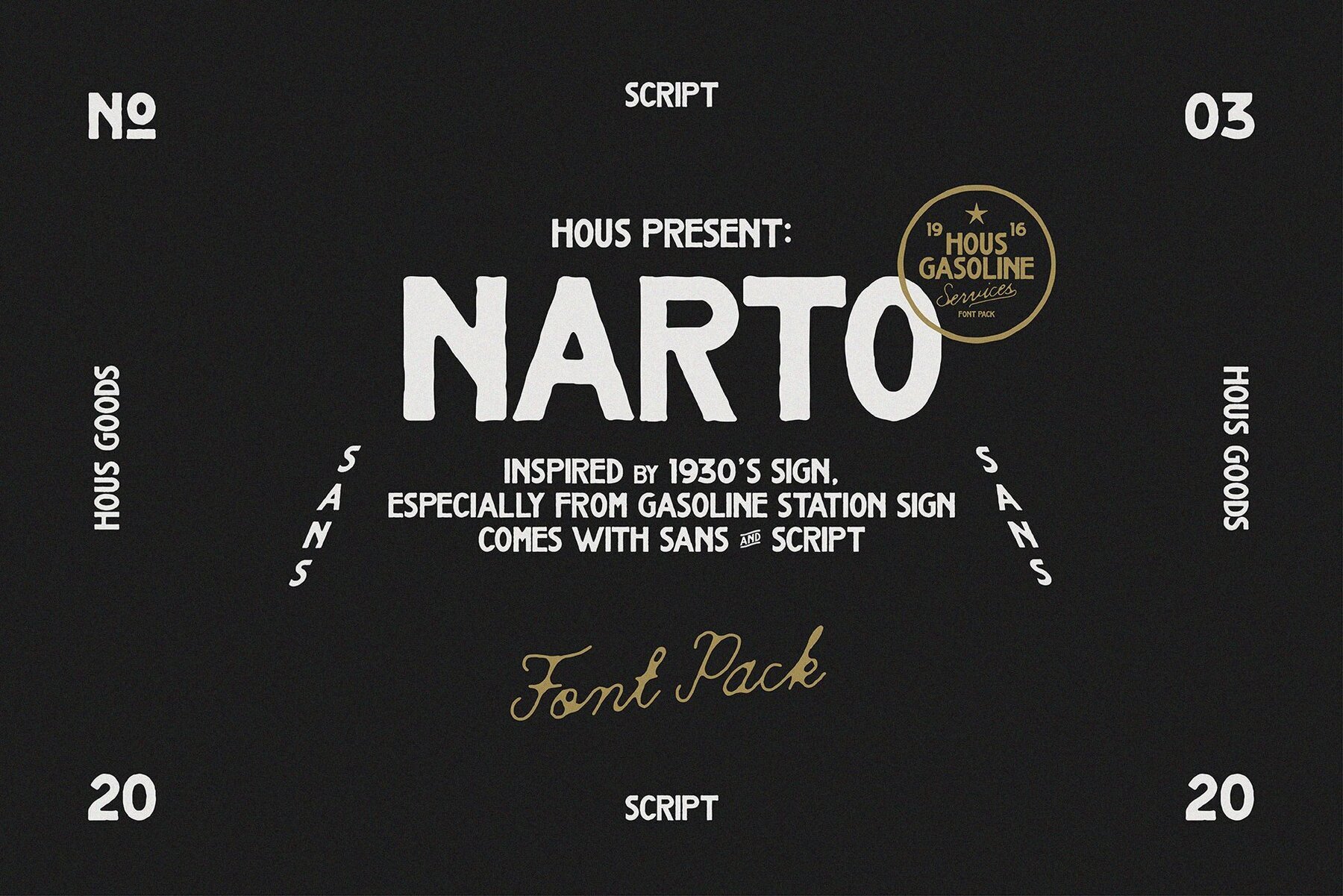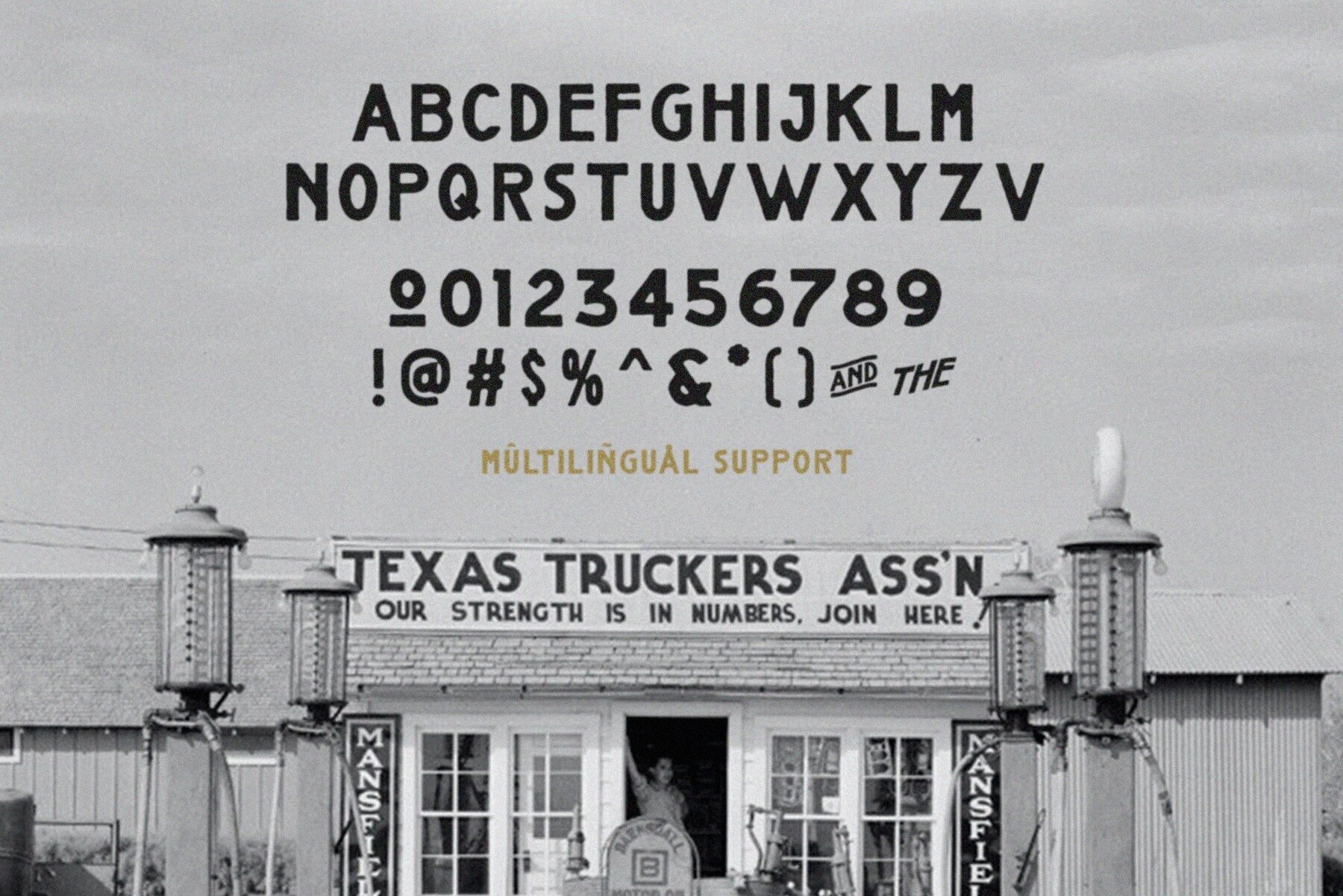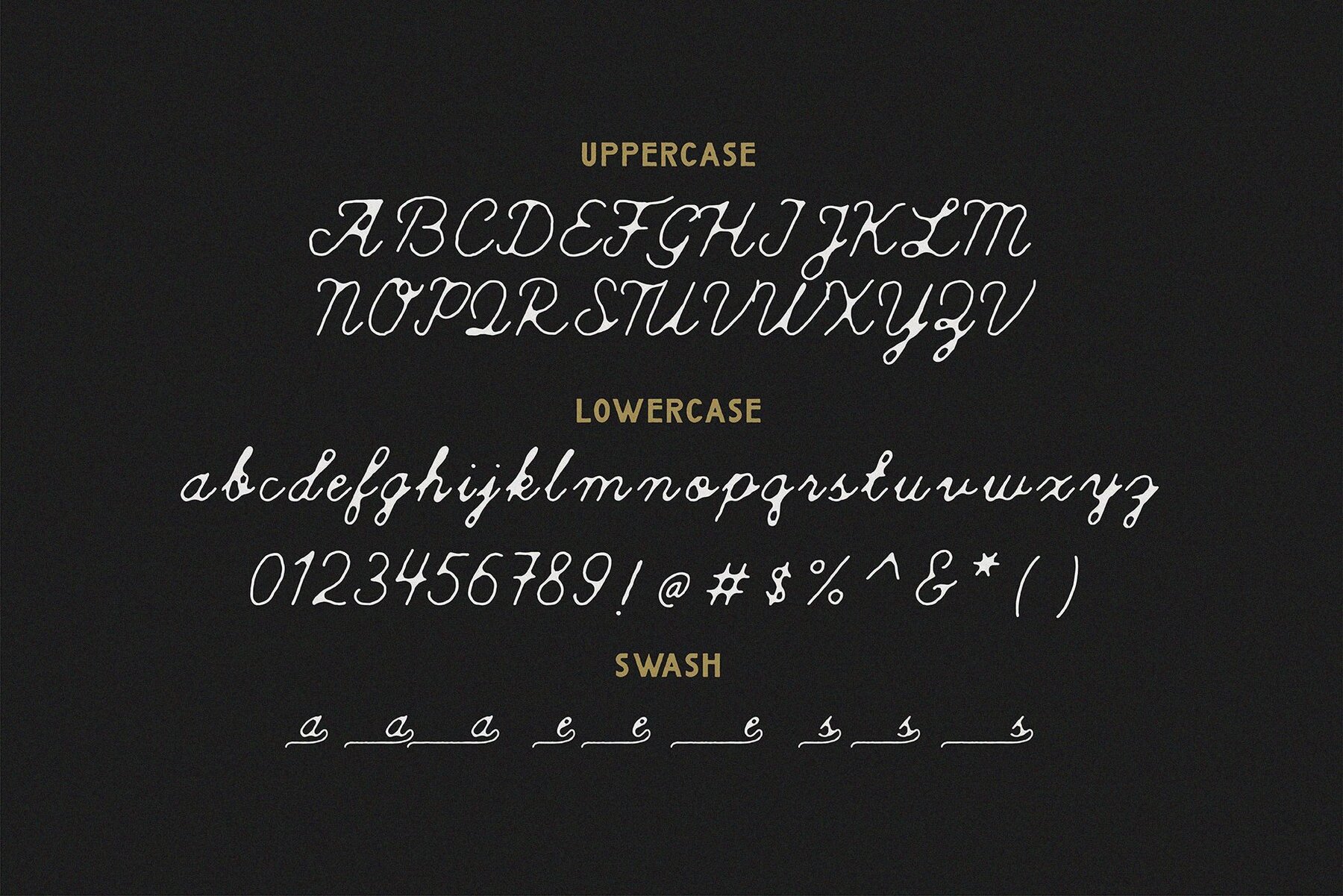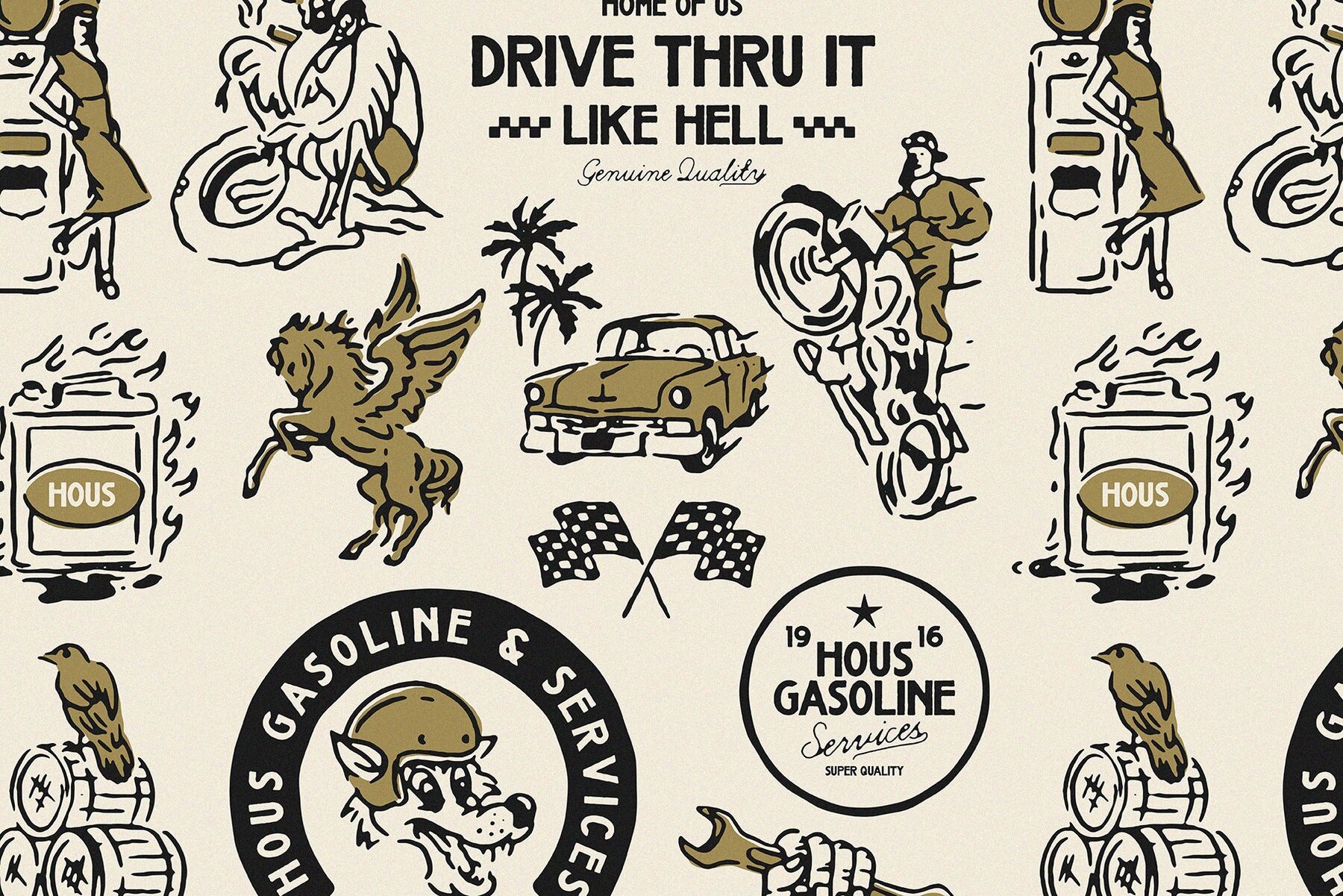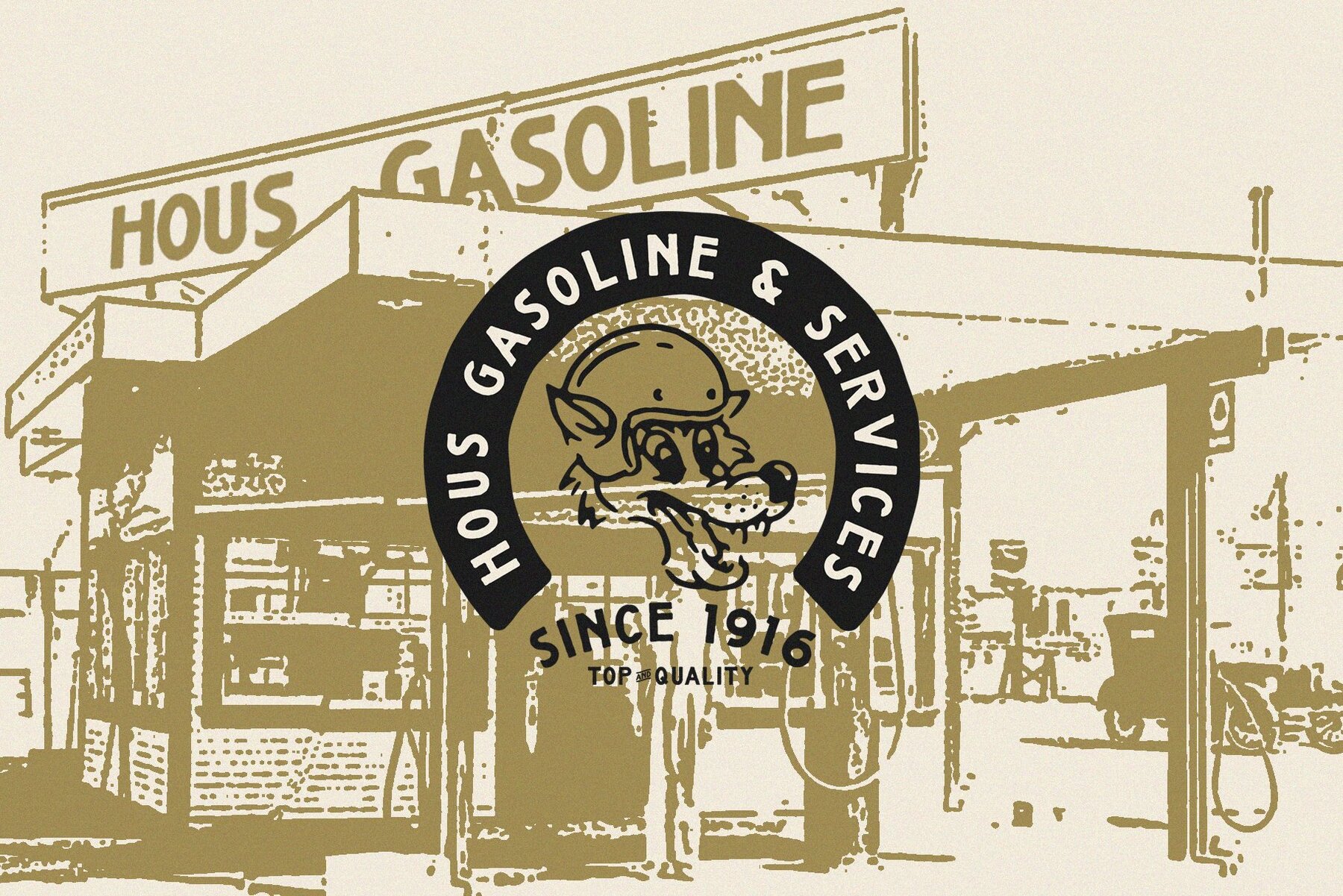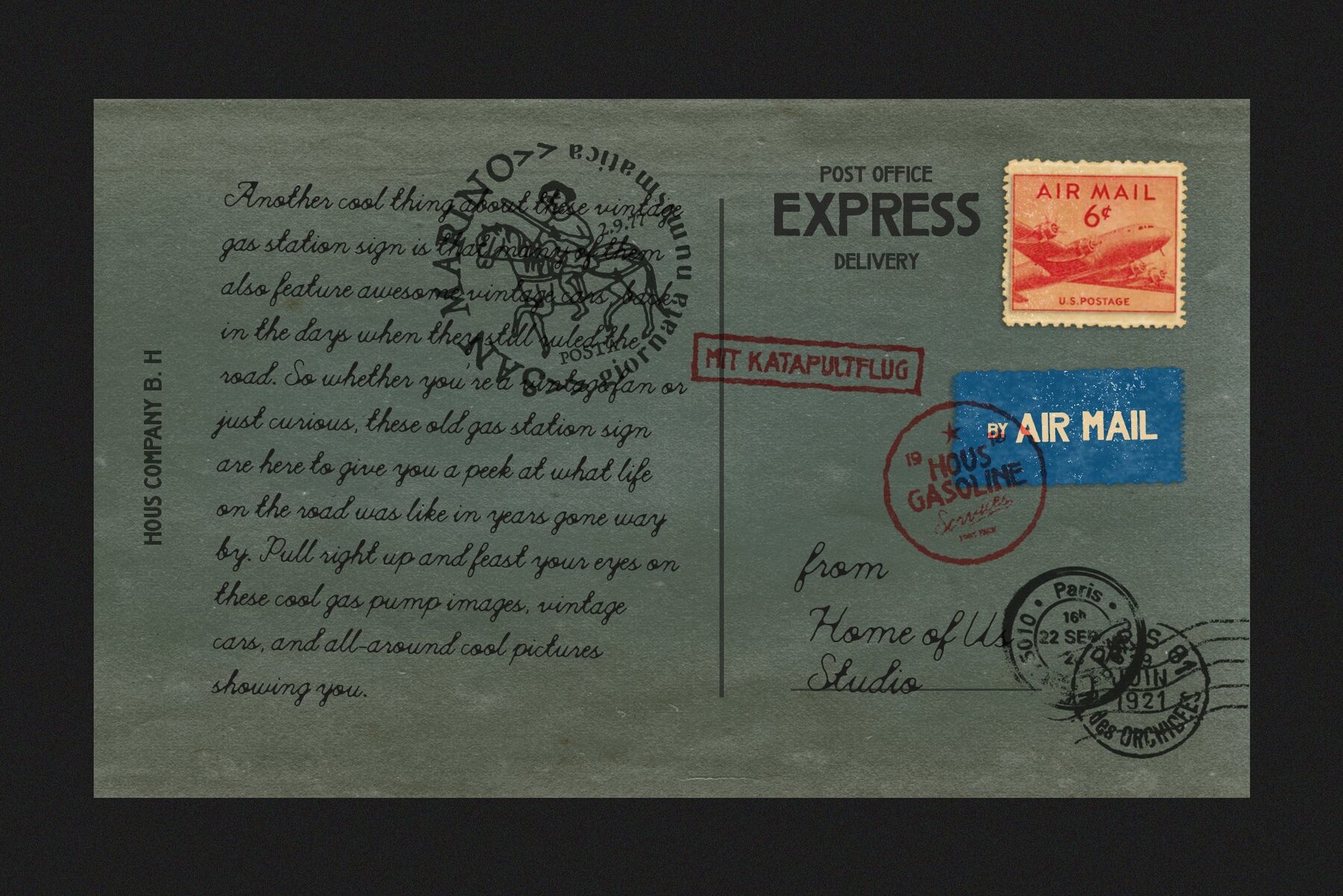
Narto Font
Narto Regular
Narto Script
Unleashing Creativity: Megflags Brand Co. NARTO FONT PACK + EXTRAS Graphic designers and marketing firms, experience unparalleled quality and timeless appeal with the NARTO FONT PACK + EXTRAS, a masterful creation by Megflags Brand Co. Inspired by the splendid aesthetics of 1930s gasoline station signs and featuring a tasteful hint of vintage vehicles, this font pack innovatively combines two distinct typefaces: an edgy sans and a sophisticated script. The pack doesn't just stop at providing versatile fonts, it also includes a delightful array of EXTRAS to enrich your text design need, successfully capturing the nostalgic charm of a bygone era while preserving a hip, modern edge.
Megflags Brand Co. is known for its nostalgic approach to modern design. Founded by HOUS Studio, the brand creates fonts, templates, and illustrations crafted for the vintage-enthusiast designer. Each product blends aged texture with contemporary precision, reflecting a love of mid-century aesthetics and timel...